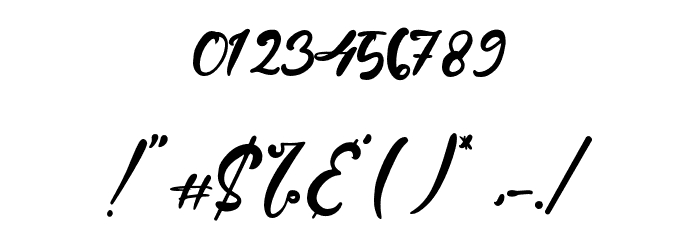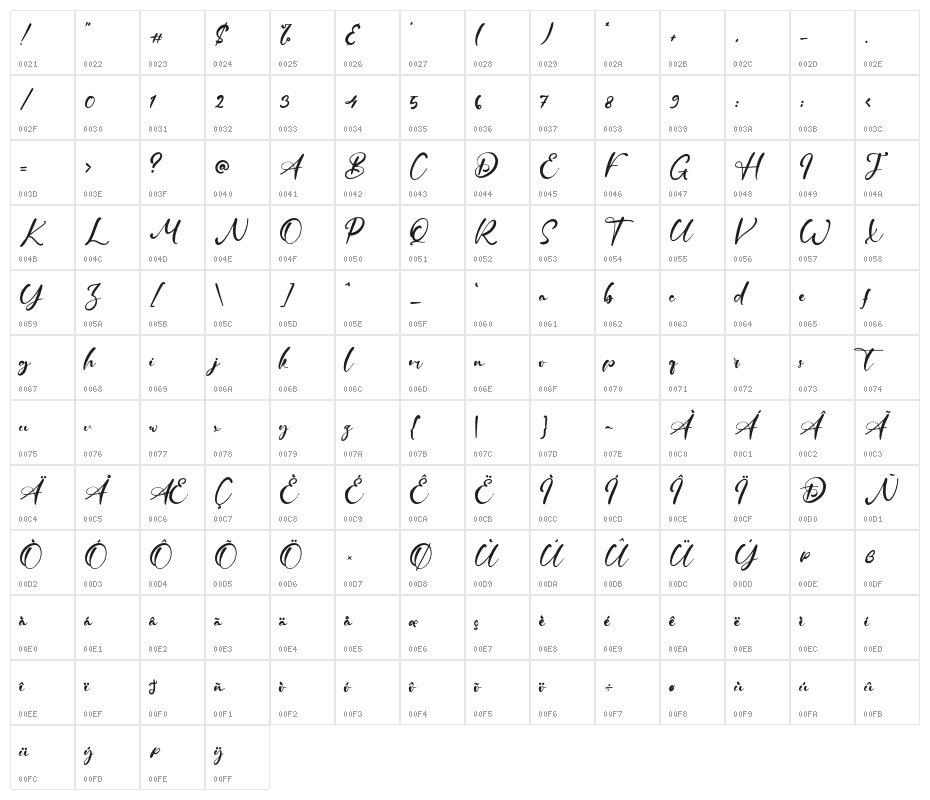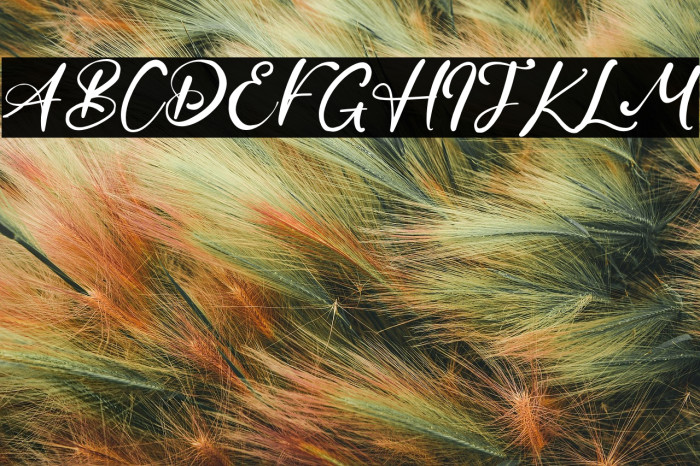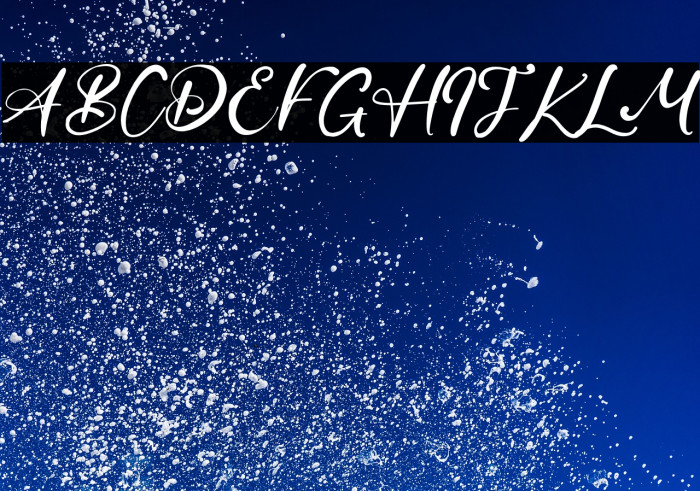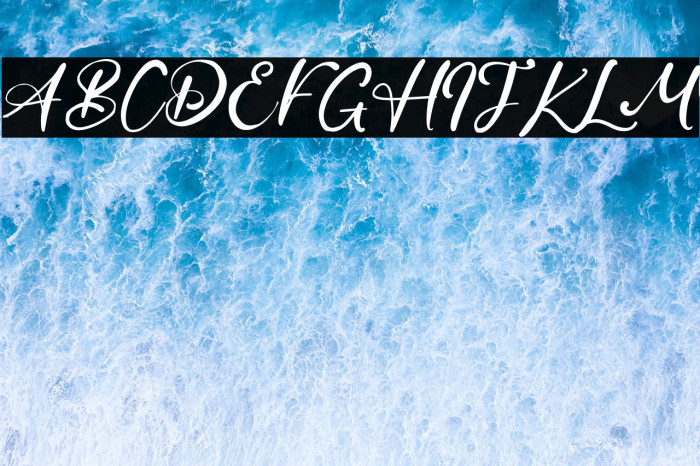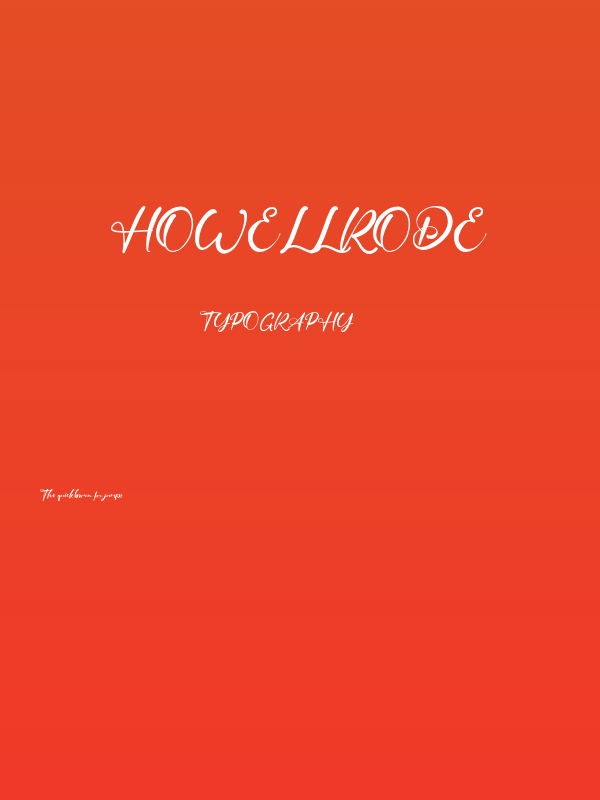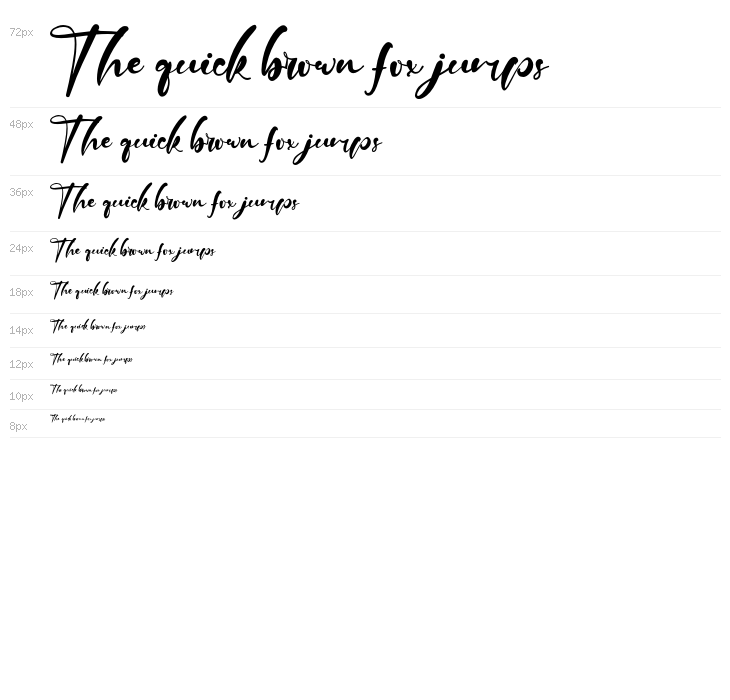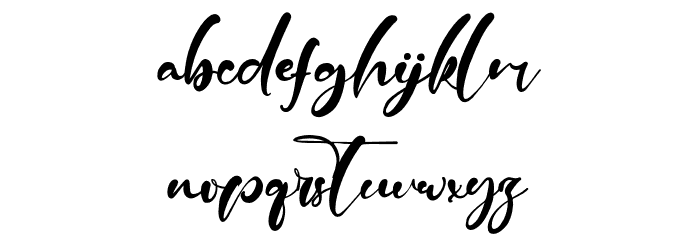
HowellRode Font
HowellRode Description
This font exudes elegance and sophistication with its flowing, cursive style. The letters are interconnected, creating a seamless and graceful appearance. The uppercase characters are particularly ornate, featuring elaborate loops and swashes that add a touch of flair. The lowercase letters maintain a consistent style, with smooth curves and a slight slant that enhances readability. Numbers and special characters are designed to match the overall aesthetic, ensuring a cohesive look across all text. This font is perfect for projects that require a personal, handwritten touch, such as invitations, greeting cards, and branding materials.